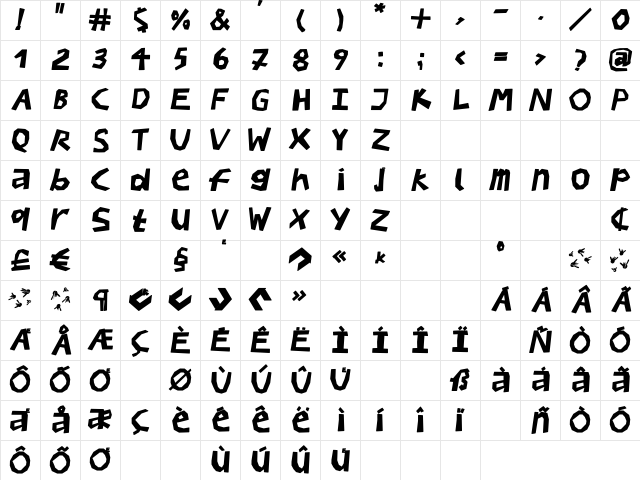
BullerBuPapercut Bold Italic
Design Context for BullerBuPapercut
BullerBuPapercut is a composed and adaptable typeface that performs quietly and consistently across a wide range of design contexts. The slanted form adds forward momentum and visual energy. Its bold stroke weight gives it real presence on the page.
Pro Tip: Use BullerBuPapercut for emphasis, pull quotes, and subheadings where its slanted energy can add rhythm to the layout.